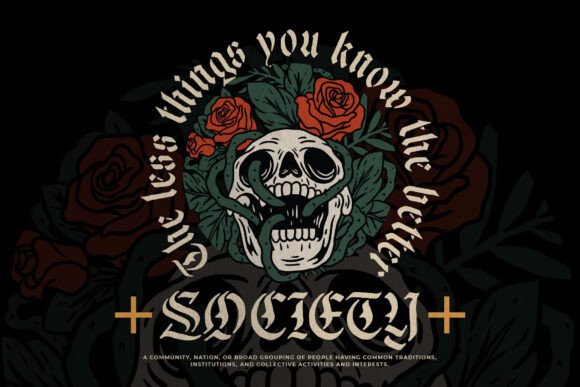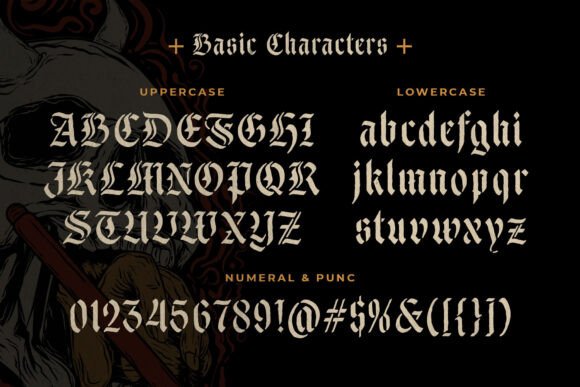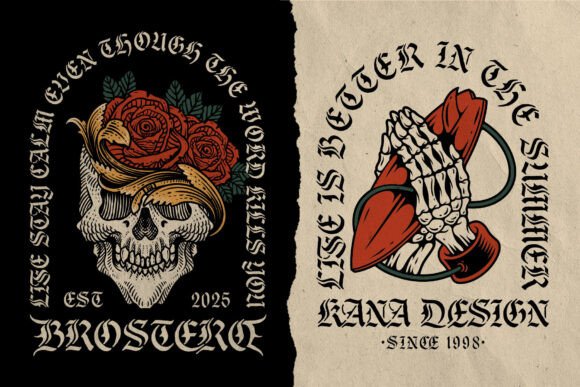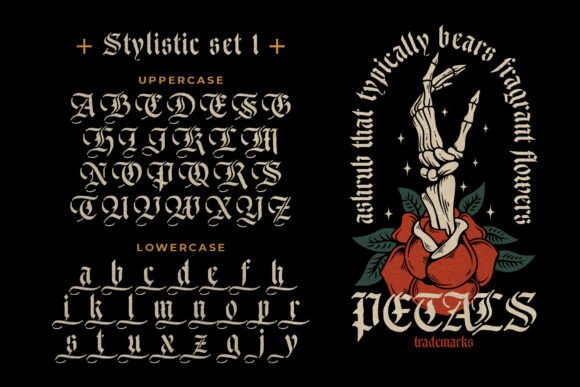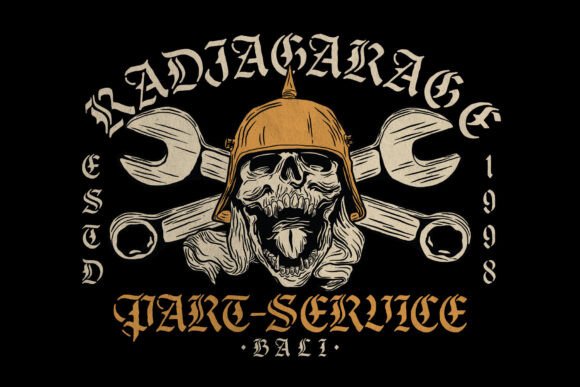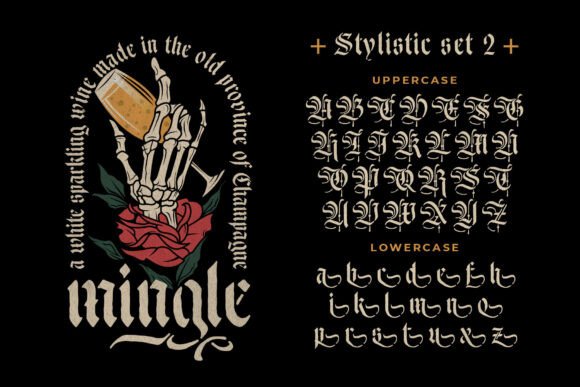
Ducky Black Font: A Timeless Blackletter Stencil Typeface for Bold Designs
Step into a world of bold gothic elegance with Ducky Black, a meticulously crafted Blackletter Vintage Stencil Typeface that merges the timeless beauty of traditional blackletter with the practicality of stencil design. This typeface is perfect for artists, designers, and creatives who want to add a historic yet industrial feel to their projects.
The Inspiration Behind Ducky Black
Ducky Black draws inspiration from the classic blackletter typefaces of the past, with a modern twist. The font’s design combines the dramatic strokes and sharp edges of traditional blackletter with the practicality of stencil design. The result is a unique and versatile typeface that is perfect for a wide range of design applications.
Key Features of Ducky Black
- Bold Gothic Elegance: Ducky Black features a bold, gothic-inspired design that is perfect for creating striking and eye-catching typography.
- Stencil-Inspired Cutouts: The font’s stencil-inspired cutouts add a touch of industrial practicality to the design, making it perfect for use in packaging, signage, and other applications where durability is key.
- Sharp Edges and Dramatic Strokes: The font’s sharp edges and dramatic strokes give it a bold and dynamic feel that is perfect for creating striking designs.
- Historic yet Industrial Feel: Ducky Black’s unique blend of traditional blackletter and stencil design gives it a historic yet industrial feel that is perfect for designers and crafters who want to add a touch of authenticity to their projects.
Use Cases for Ducky Black
Ducky Black is a versatile typeface that can be used in a wide range of design applications, including:
- Branding: Use Ducky Black to create bold and striking logos that make a lasting impression.
- Tattoos: The font’s bold and gothic-inspired design makes it perfect for use in tattoo designs.
- Packaging: Ducky Black’s stencil-inspired cutouts make it perfect for use in packaging design, where durability and practicality are key.
- Posters: Use Ducky Black to create striking and eye-catching posters that grab attention.
- Signage: The font’s bold and industrial design makes it perfect for use in signage, where visibility and durability are key.
- Apparel: Ducky Black is perfect for use in apparel design, where a bold and striking design can make a lasting impression.
- Vintage-Themed Designs: The font’s historic yet industrial feel makes it perfect for use in vintage-themed designs, such as medieval-style logos and bold streetwear designs.
Why Choose Ducky Black?
There are many reasons why designers and crafters should choose Ducky Black for their projects. Here are just a few:
- Unique and Versatile Design: Ducky Black’s unique blend of traditional blackletter and stencil design makes it a versatile typeface that can be used in a wide range of design applications.
- High-Quality Design: The font is meticulously crafted to ensure that it is of the highest quality, with sharp edges and dramatic strokes that give it a bold and dynamic feel.
- Perfect for Designers and Crafters: The font is perfect for designers and crafters who want to add a historic yet industrial feel to their projects.
Ducky Black is a timeless Blackletter Vintage Stencil Typeface that is perfect for designers and crafters who want to add a bold and industrial touch to their projects. With its unique blend of traditional blackletter and stencil design, sharp edges, and dramatic strokes, Ducky Black is a versatile typeface that can be used in a wide range of design applications. Whether you’re crafting a medieval-style logo or a bold streetwear design, Ducky Black brings character, depth, and authenticity to your typography.